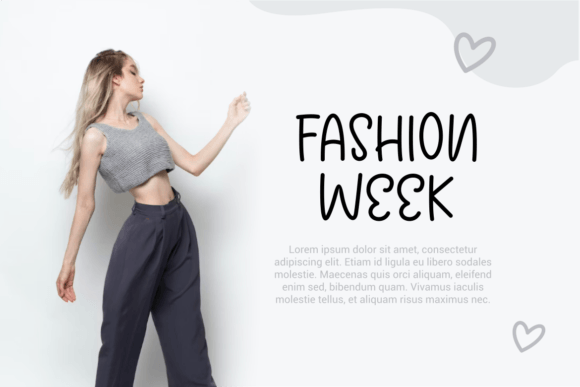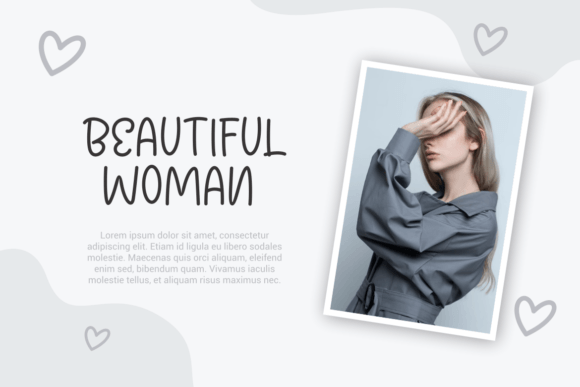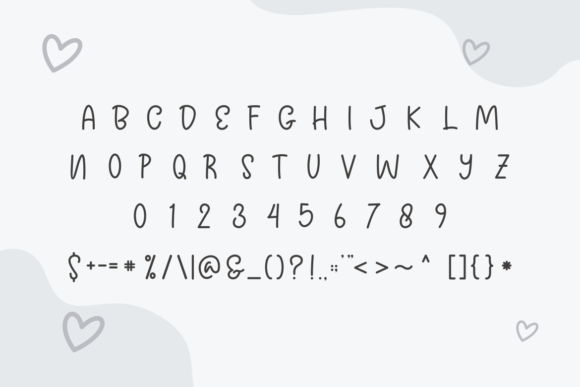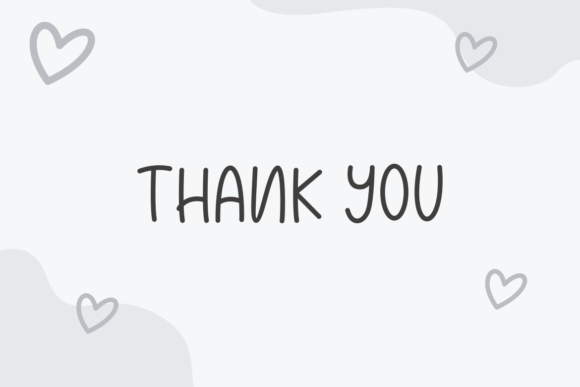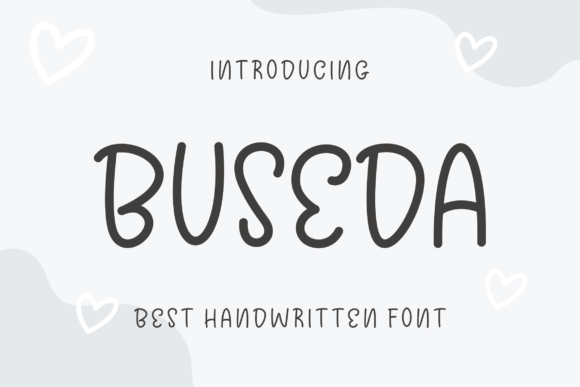
Buseda Font: Elevate Your Designs with a Modern and Authentic Handwritten Style
In the world of typography, a well-crafted font can make all the difference in elevating your designs to the next level. For designers and crafters looking for a modern and authentic handwritten font, Buseda Font is an excellent choice. This versatile font is perfect for both professional and branding needs of a product, offering a unique and stylish touch to various projects.
What is Buseda Font?
Buseda Font is a contemporary handwritten font designed to cater to a wide range of design needs. Its modern and authentic style makes it an ideal choice for designers seeking a fresh and distinctive look. The font’s unique characteristics and elegant flow make it perfect for adding a personal touch to various projects.
Key Features of Buseda Font
- Modern and Authentic Handwritten Style: Buseda Font boasts a modern and authentic handwritten style, making it perfect for designs that require a personal touch.
- Versatile and Flexible: This font is suitable for a wide range of projects, including quotes, logos, blog headers, posters, letters, invitations, stationery, and more.
- Professional and Branding Needs: Buseda Font is designed to meet the professional and branding needs of a product, making it an excellent choice for businesses and individuals looking for a unique and stylish font.
- Elegant Flow and Unique Characteristics: The font’s elegant flow and unique characteristics make it stand out from other fonts, adding a distinctive touch to your designs.
Use Cases for Buseda Font
Buseda Font is a versatile font that can be used in various projects, including:
- Quotes and Inspirational Messages: Add a personal touch to your quotes and inspirational messages with Buseda Font’s elegant and modern style.
- Logos and Branding: Use Buseda Font to create unique and stylish logos that reflect your brand’s personality and values.
- Blog Headers and Posters: Elevate your blog headers and posters with Buseda Font’s modern and authentic handwritten style.
- Letters and Invitations: Add a touch of elegance to your letters and invitations with Buseda Font’s unique and stylish design.
- Stationery and Packaging: Use Buseda Font to create distinctive and memorable stationery and packaging that reflects your brand’s identity.
Benefits of Using Buseda Font
By using Buseda Font, designers and crafters can enjoy several benefits, including:
- Unique and Stylish Designs: Buseda Font offers a unique and stylish touch to your designs, setting them apart from others.
- Time-Saving: With Buseda Font, you can save time and effort in creating custom designs from scratch.
- Consistency and Professionalism: Buseda Font ensures consistency and professionalism in your designs, making them perfect for branding and marketing materials.
- Easy to Read and Understand: The font’s elegant flow and clear design make it easy to read and understand, ensuring that your message is conveyed effectively.
In conclusion, Buseda Font is a modern and authentic handwritten font that offers a unique and stylish touch to various projects. Its versatility, flexibility, and elegant design make it perfect for designers and crafters looking for a font that can elevate their designs to the next level. Whether you’re looking for a font for professional or branding needs, Buseda Font is an excellent choice.